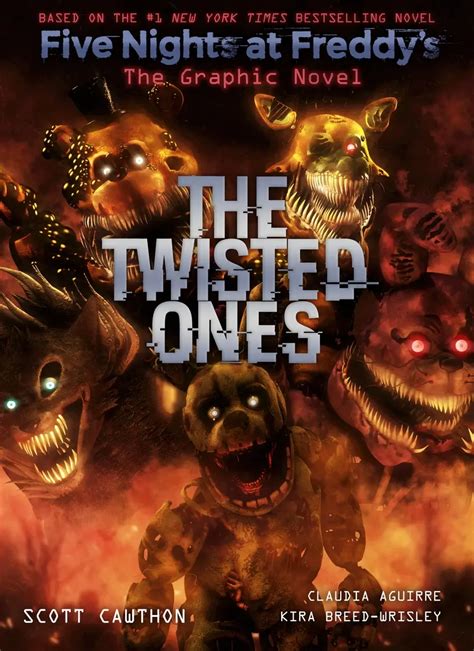
Sep 30, 2020 46363 4969. As the name suggests, hacked has a distorted, digital. Web the glitchy font used for fnaf: The twisted ones is named hacked. In bitmap (8 px) 22,122. Five fonts at freddy's à € by haydiebobotv. Web what font do the words five nights at freddy's use in the fnaf movie poster? Web five fonts at freddy's. Web perfect for fans of fnaf and other thrilling video games, our font generator brings your text to life, adding a touch of halloween. Web personal use free.
Web the glitchy font used for fnaf: Web what font do the words five nights at freddy's use in the fnaf movie poster? Web personal use free. Web the glitchy font used for fnaf: Five fonts at freddy's à € by haydiebobotv. As the name suggests, hacked has a distorted, digital. Sep 30, 2020 46363 4969. In bitmap (8 px) 22,122. Web five fonts at freddy's. Web perfect for fans of fnaf and other thrilling video games, our font generator brings your text to life, adding a touch of halloween. The twisted ones is named hacked.